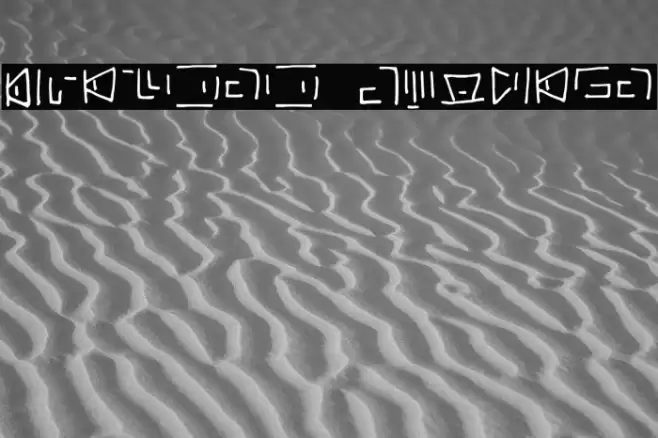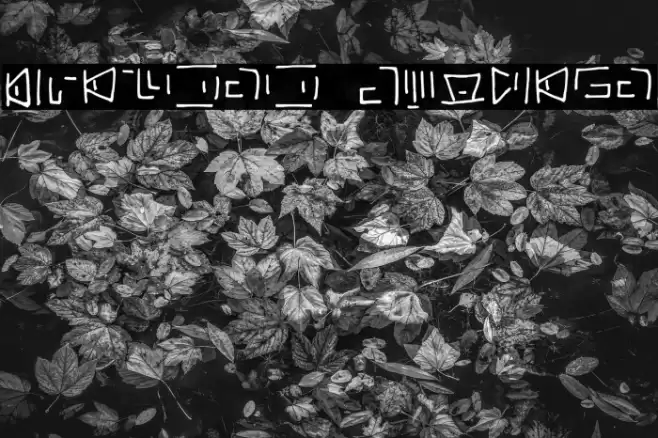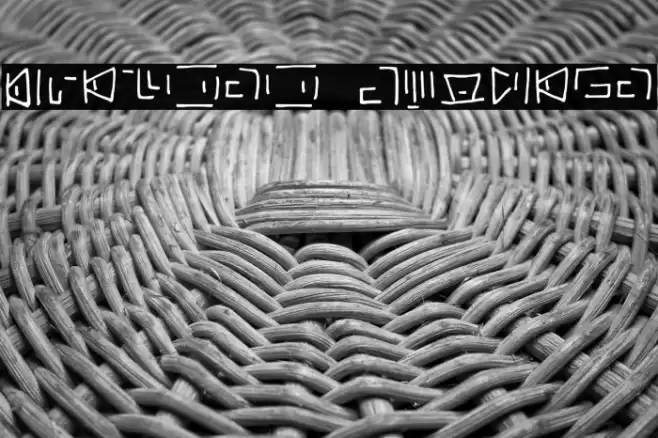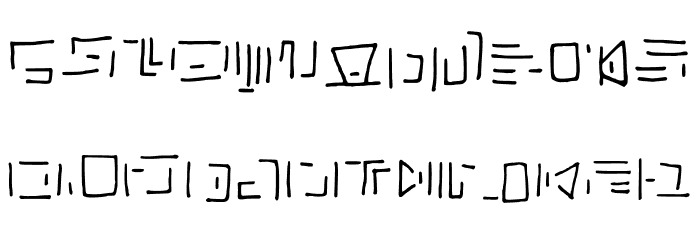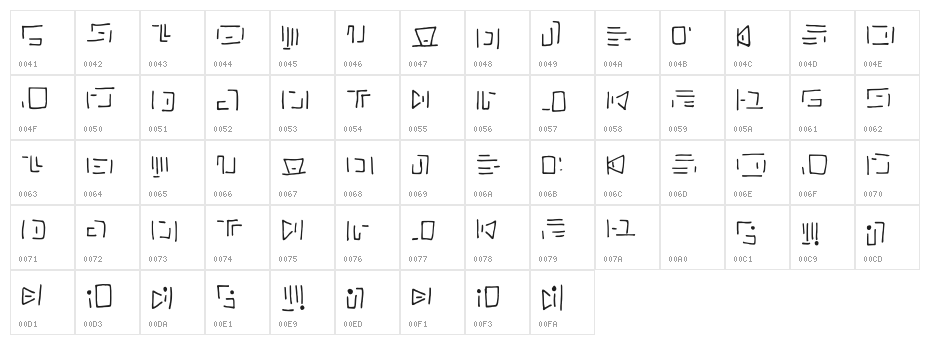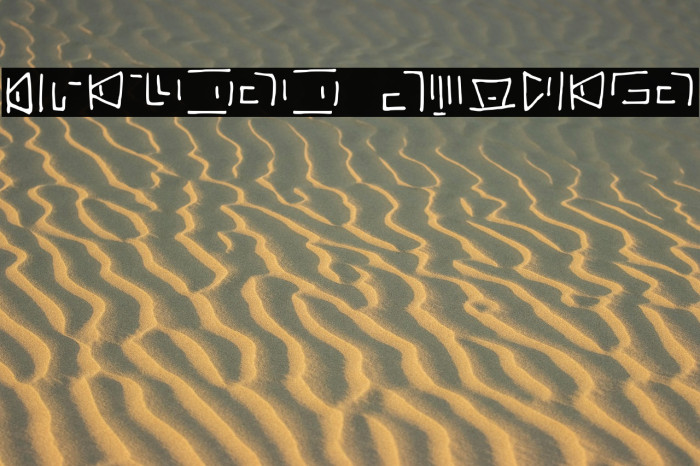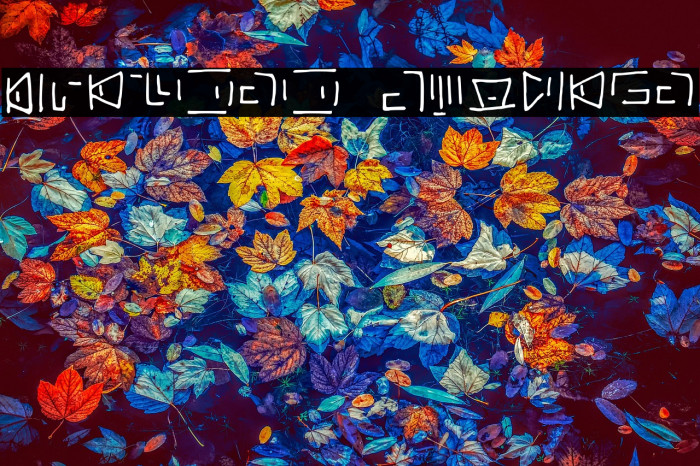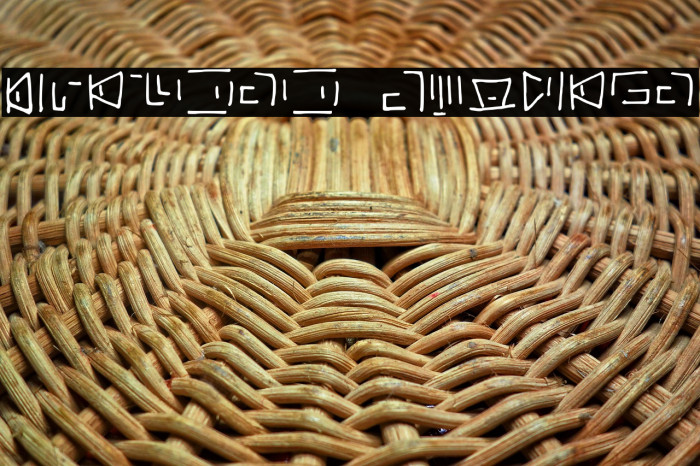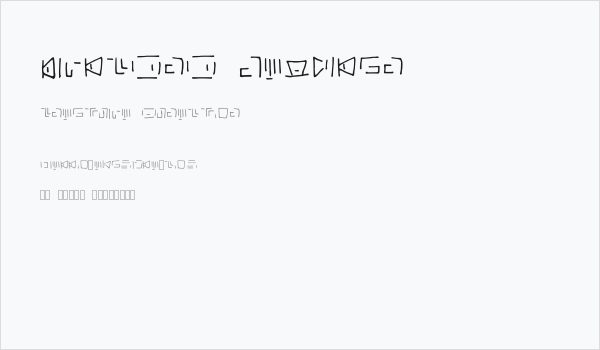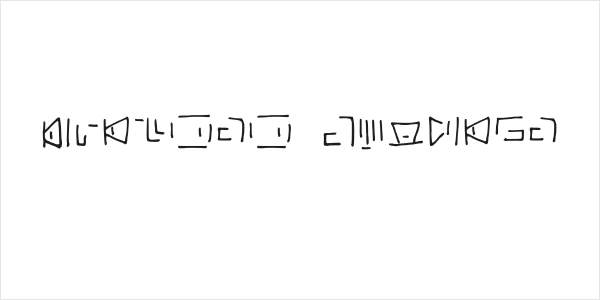
Lvlcnrn Regular Font
Lvlcnrn Regular Description
This font features a highly decorative and abstract style, reminiscent of ancient scripts or coded symbols. Each character is composed of unique geometric shapes and lines, creating a mysterious and cryptic appearance. The design is consistent across all characters, maintaining a uniform look that enhances its enigmatic quality. The strokes are irregular, with varying thickness that adds to the handcrafted feel. This font is not suited for traditional readability but excels in artistic and thematic applications where a sense of mystery or ancient allure is desired.
A decorative, abstract font with a cryptic, ancient script-like appearance from Dingbats fonts.
- Proposed Projects: Ideal for escape room designs, themed event invitations, fantasy game graphics, or any project requiring a mysterious or ancient aesthetic.
- Use Case: Logos, Artistic projects, Themed designs